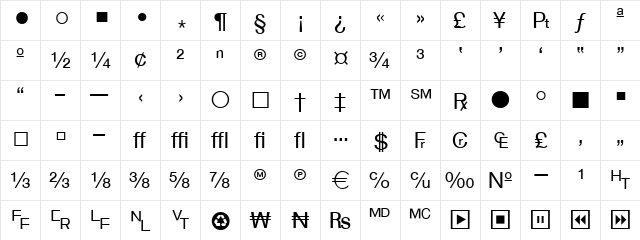
WP TypographicSymbols Regular
Design Context for WP TypographicSymbols Typeface
WP TypographicSymbols is a composed and adaptable typeface that performs quietly and consistently across a wide range of design contexts.